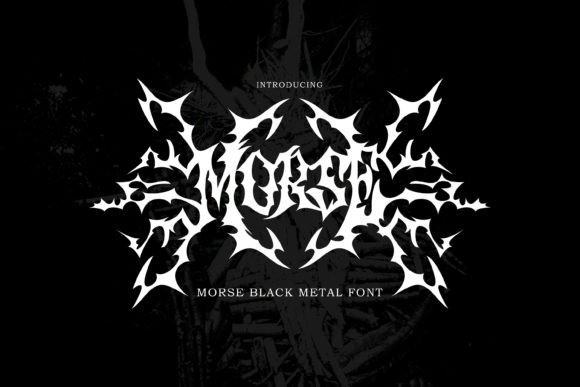
Introducing Morse Font, the ultimate choice for those seeking a font that screams "Font For Film Poster." Created by the talented Tebaltipis.std, this display font is all you need to elevate your design game to new heights.
Morse Font is not your ordinary font. It is a cool and edgy alternative that will instantly give your designs a unique and captivating appeal. Whether you're a member of an Underground band or a creative individual looking to make a bold statement, this font is your perfect companion.
What sets Morse Font apart from the rest is its clever use of alternate front and ending letters. This ingenious design element brings the font to life, adding an extra layer of visual interest that is sure to catch the eye of your audience. With Morse Font, your logo will be anything but ordinary - it will be a work of art.
But that's not all. Morse Font also comes equipped with a basic character set and a small group of symbols and signs commonly used in the extreme music sector. If you're a fan of Death- and Black metal, you'll find all the classics here - pentagram drops, roots, spikes, and more. These elements will give your designs that authentic and hardcore vibe that is synonymous with the genre.